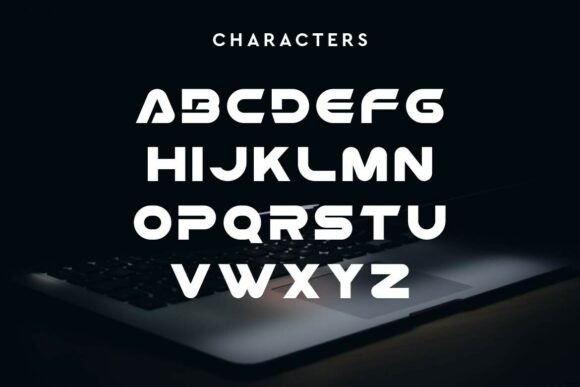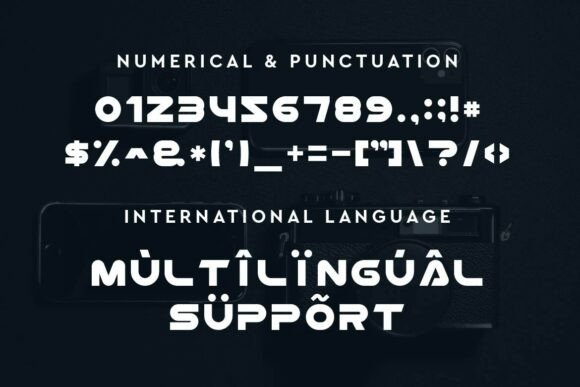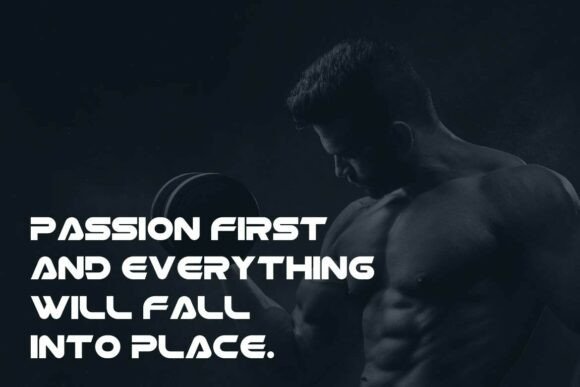
Introduction to Monumen Font
Have you ever been stuck on a creative project, searching for the perfect font to convey your message and grab the audience’s attention? You’re not alone. Designers know that a well-chosen font can make all the difference between a design that falls flat and one that truly stands out. That’s where the Monumen Font comes in – a bold and commanding sans serif display font designed to make a lasting impact.
With its thick strokes, sharp angles, and structured form, the Monumen Font exudes strength, authority, and confidence, making it an ideal choice for logos, posters, sports branding, headlines, apparel, and product packaging that demand attention. Whether you’re working on a high-profile campaign or a personal project, the Monumen Font is a valuable resource that’s sure to elevate your design and leave a lasting impression.
Key Features of Monumen Font
- Unique and stylish design elements, including ornaments and flourishes, to add a touch of elegance to any project.
- Perfect for use in various design contexts, including logos, typography, and graphic design projects.
Honest Review: Monumen Font
As a designer, I’m always on the lookout for high-quality design resources to elevate my creative projects. Recently, I stumbled upon the Monumen Font, and I’m excited to share my honest review with you.
- Unique aesthetic: The Monumen Font has a distinct, modern look that’s perfect for contemporary designs.
- High-quality glyphs: The font is well-crafted, with clear and crisp letters that are easy to read.
- Limited language support: The Monumen Font only supports a limited number of languages, which might be a concern for designers working on global projects.
- Not ideal for transparent backgrounds: Due to its bold design, the Monumen Font may not be the best choice for designs that require a transparent background.
Overall, I’m impressed with the Monumen Font’s unique style and high-quality design. While it may have some limitations, it’s an excellent free download that’s perfect for adding a modern touch to your creative projects. I’d definitely recommend it to fellow designers looking for a reliable design resource.
Common Use Cases for Monumen Font
Monumen Font is ideal for use in creative projects such as logos, business cards, and brochures. Its high quality and transparent background feature make it a versatile design resource for a variety of applications.